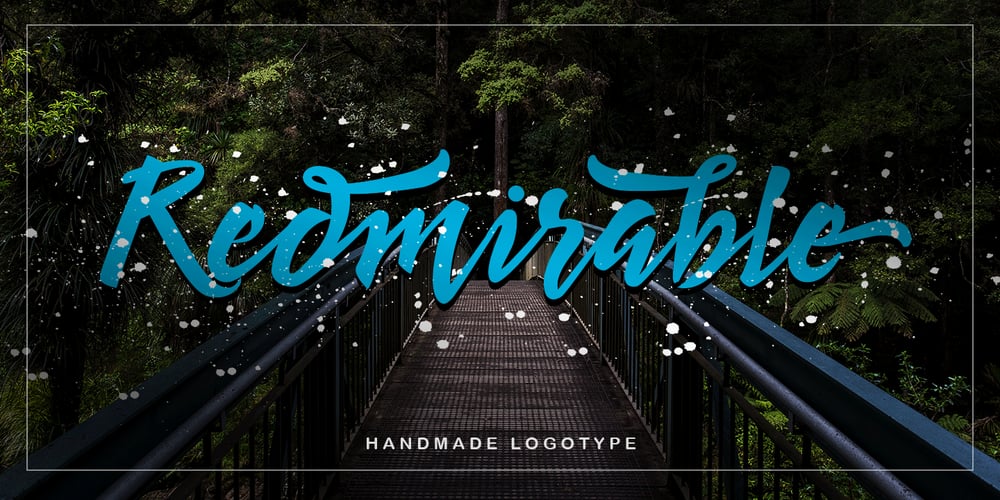
Redmirable Font Family was designed by Putra Khan and published by Mindtype Co.. Redmirable contains 2 styles and family package options. Redmirable is a new, fresh, and modern font with a calligraphy style. It can used for anything from promotional material, logotype, branding, handwritten quotes, to product packaging, signage, labels, newsletters, posters, merchandise and branding projects.